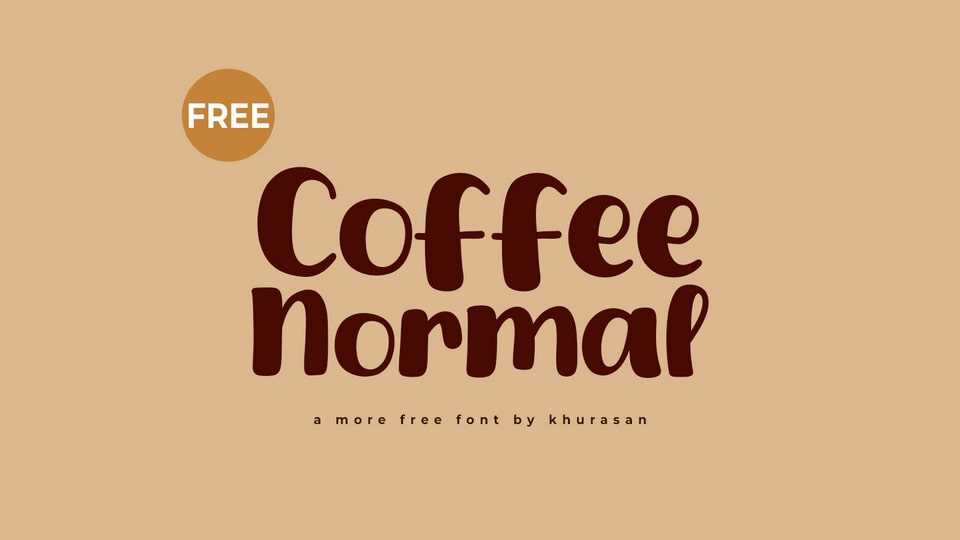
Download Coffee Normal font, a lovely and irresistibly cute hand-drawn typeface that radiates warmth and charm. Coffee Normal font is crafted with a playful touch, evoking a sense of whimsy and joy that instantly captivates the heart.